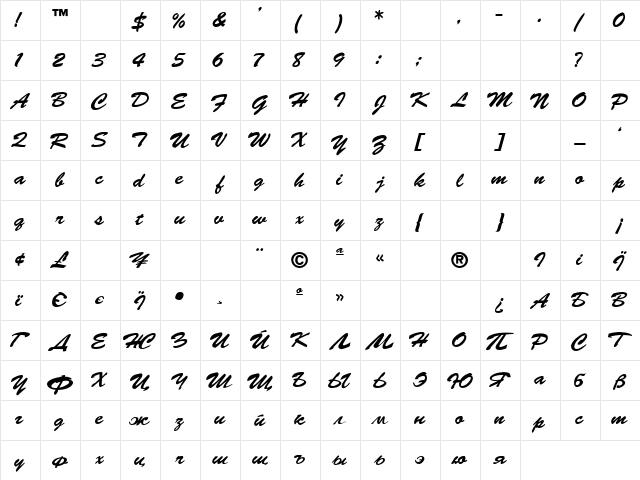
BrushScriptUkrain Light
Design Context for BrushScriptUkrain Typeface
BrushScriptUkrain brings a calligraphic fluidity to the page — its connecting strokes and expressive curves give it an unmistakably human quality. Its slender proportions lend an understated elegance to any composition.
Font Pairing: Combine BrushScriptUkrain with a simple geometric sans for maximum contrast — the tension between flowing curves and clean structure is a classic typographic pairing.
Pro Tip: Pair BrushScriptUkrain with a clean sans-serif for supporting text. The contrast between fluid script and geometric structure creates an elegant typographic hierarchy.